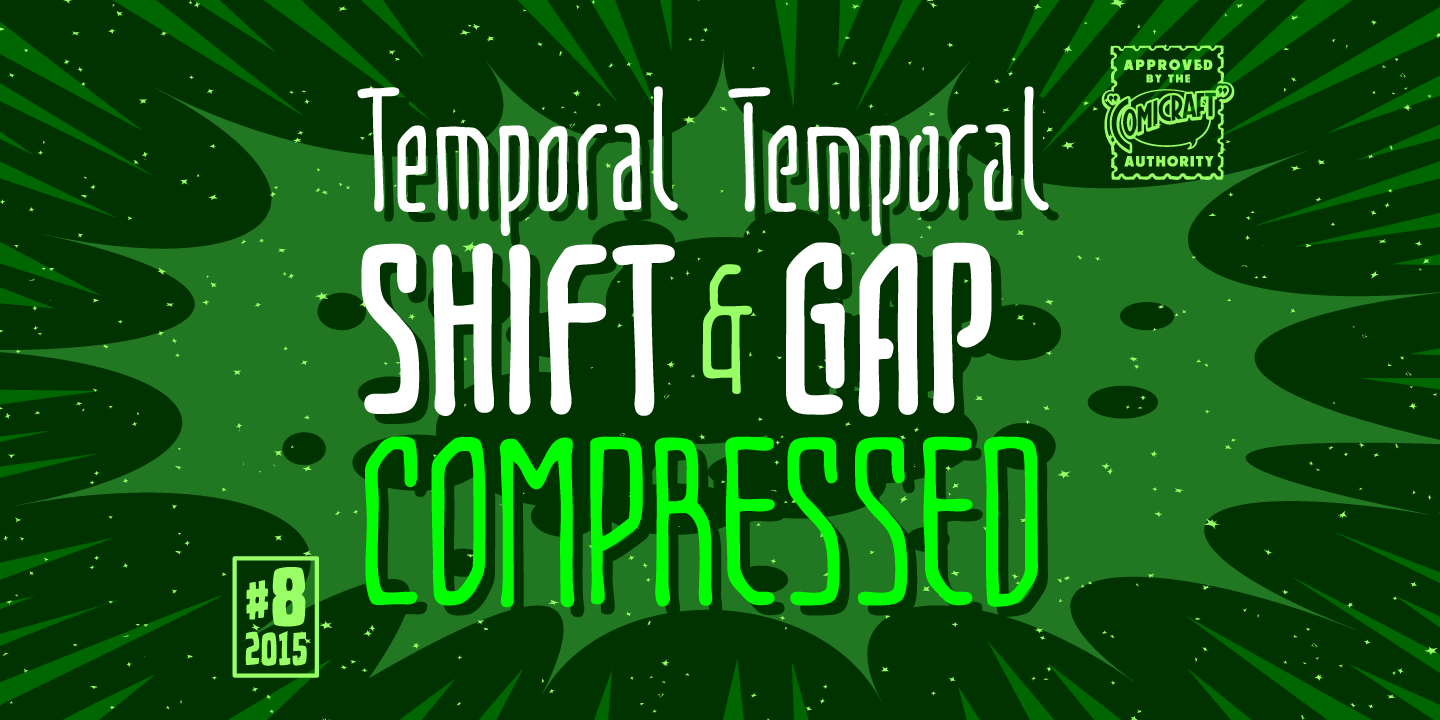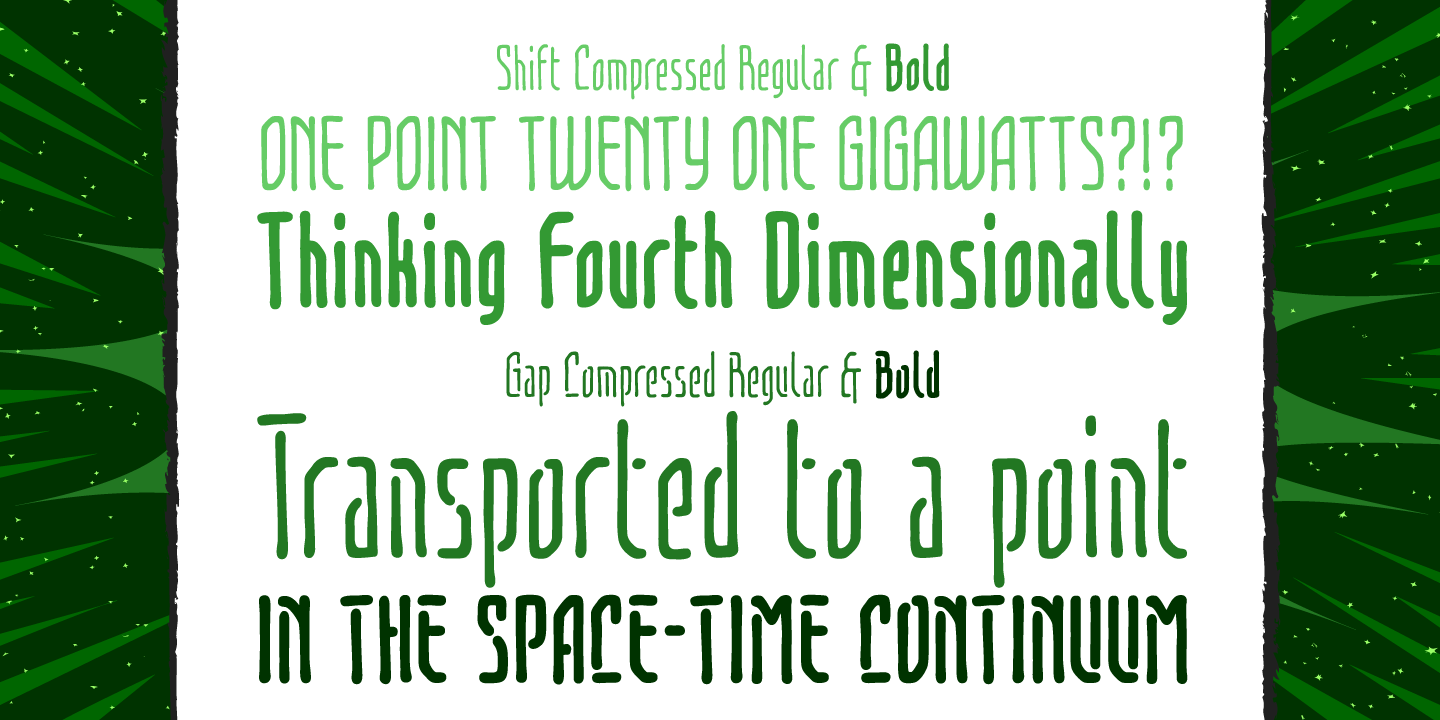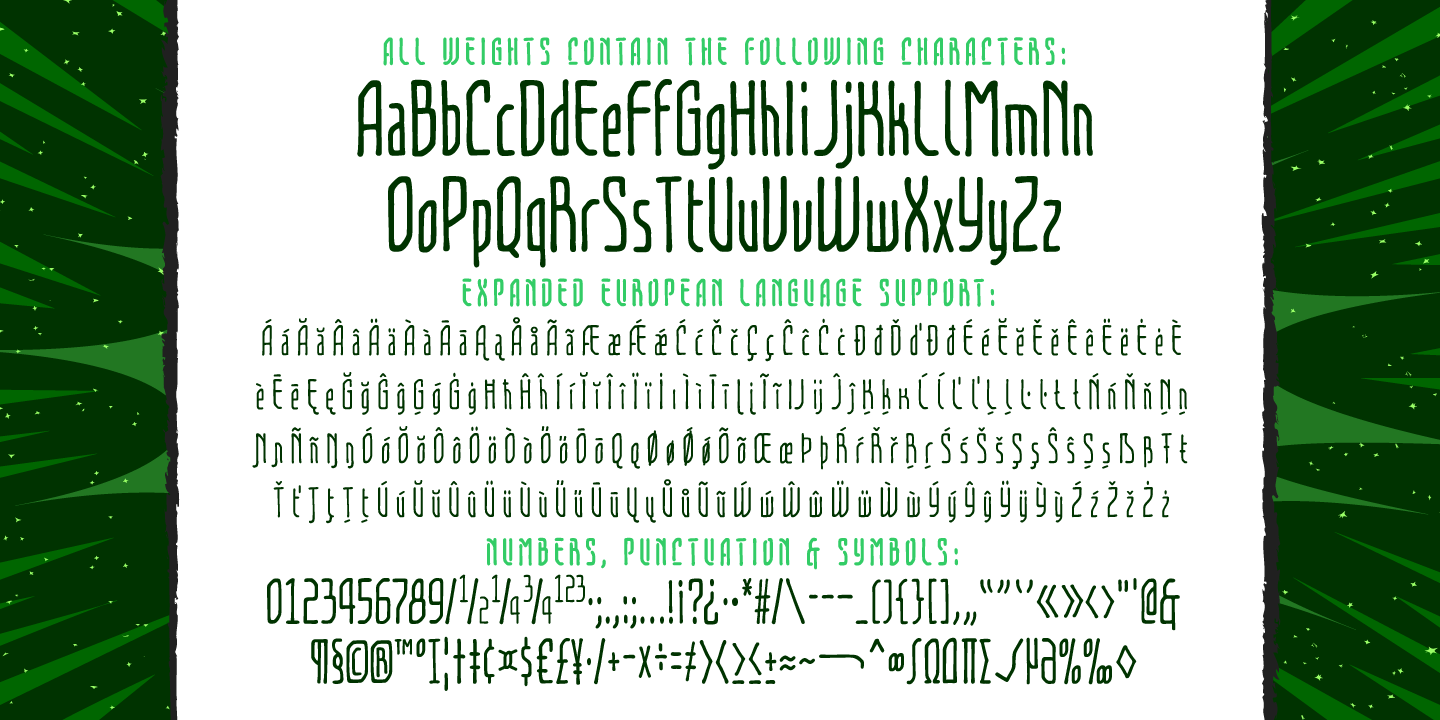
Temporal Shift & Gap Compressed
Font Family by Comicraft Fonts
If it seems like minutes are flying by like seconds, hours like minutes, you're right -- time IS speeding up. There's not enough time in the day or days in the week; the rent is due and there's not enough month at the end of the money... Slow down time and typespace right now, and squeeze more words into each line and time into each day, with Temporal Shift and Temporal Gap Compressed!